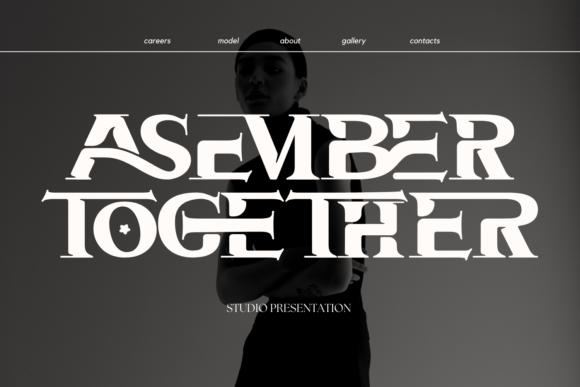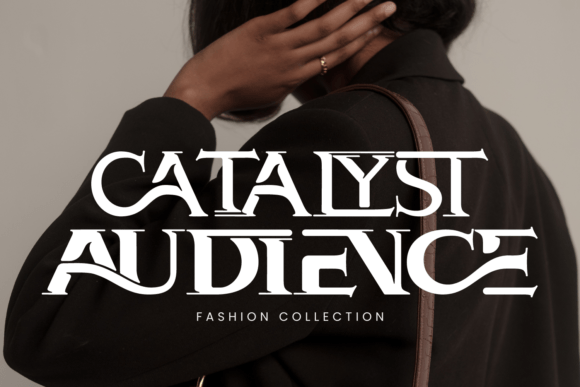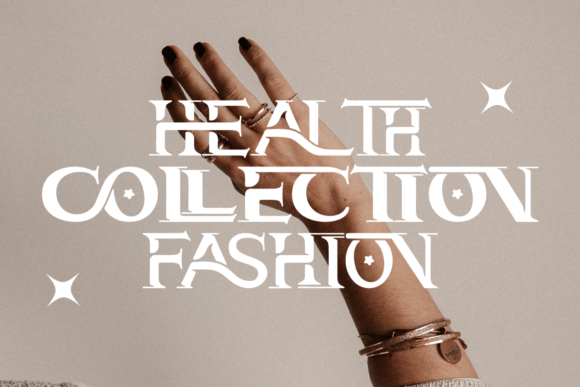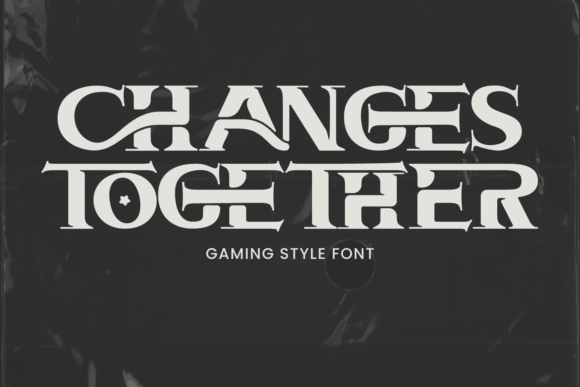
Introduction to Changes Together Font
Changes Together is a bold and assertive serif font.
Why Choose Changes Together Font?
Changes Together Font offers exceptional quality and versatility, making it a valuable addition to your design toolkit. Whether you’re creating for personal projects or commercial use, Changes Together Font delivers professional results.